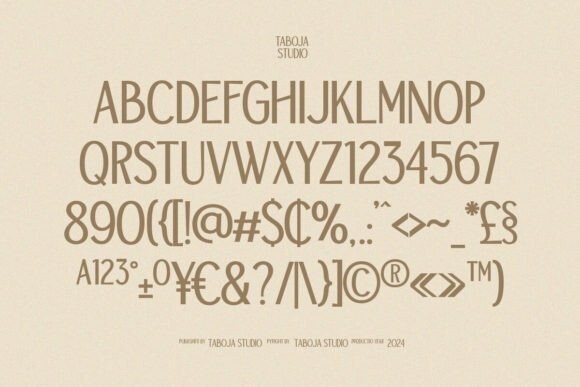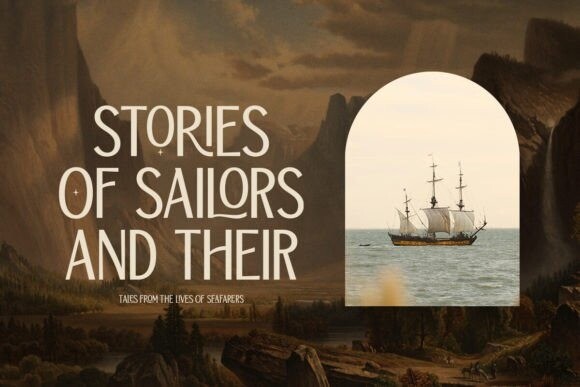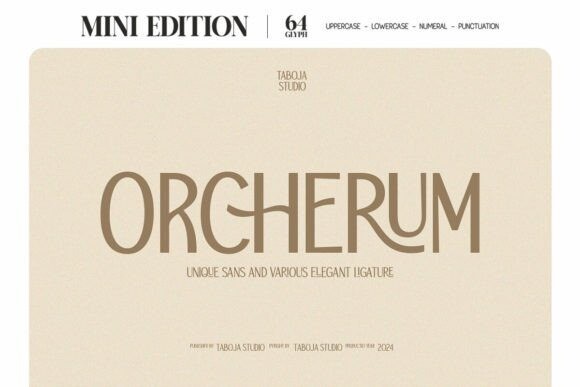
Orcherium Font
Orcherum Font – Unique Sans Serif, a font that exudes elegance and sophistication with its captivating design and exquisite ligatures. Perfect for enhancing your design elements, this font offers a modern yet timeless aesthetic, making it an ideal choice for a variety of design projects.